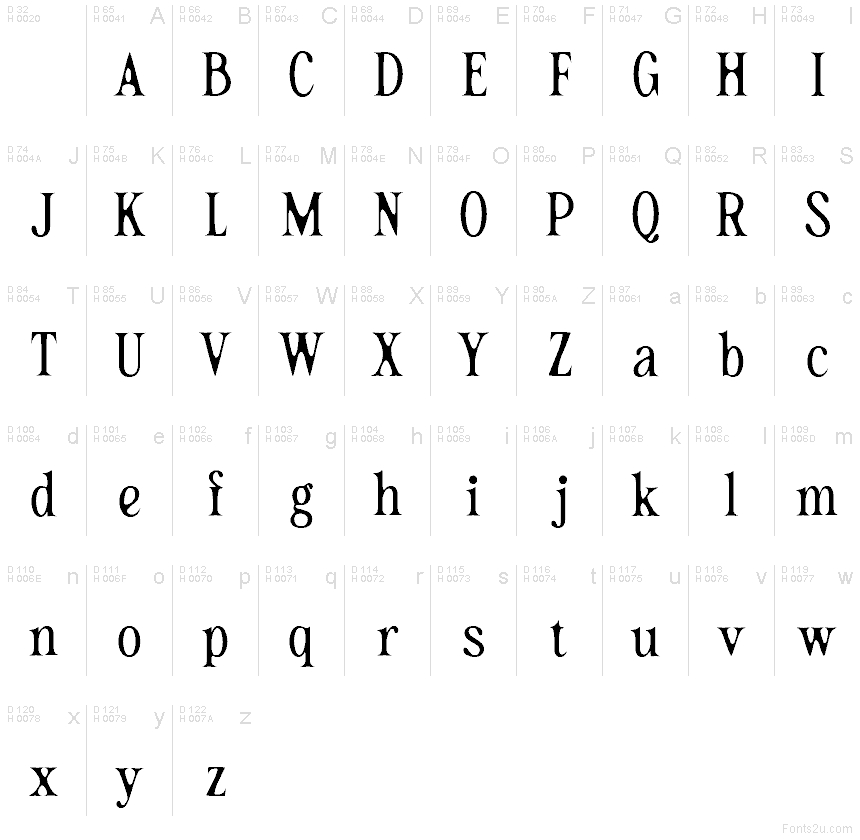
CSDustineDrawn-Regular Demo
CS Dustine Drawn font by Craft Supply Co. is a serif font featuring an elegant, sophisticated and classic design. Its look exudes refinement through condensed width and gentle curves. The traditional stylishness of the delicate strokes carried by this family guarantees fine typography in small and large sizes.